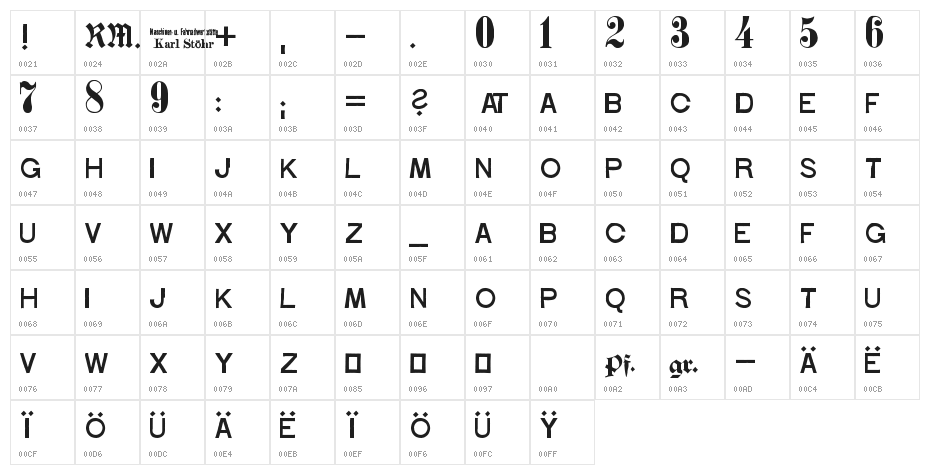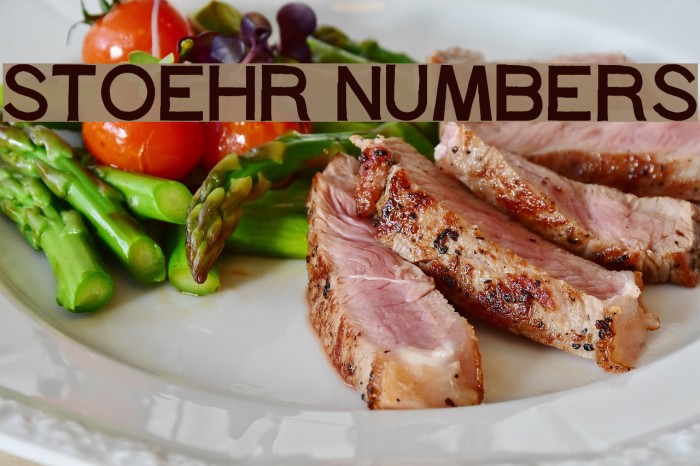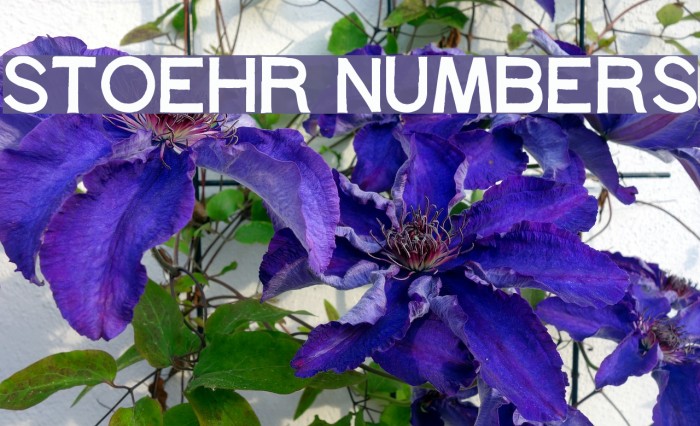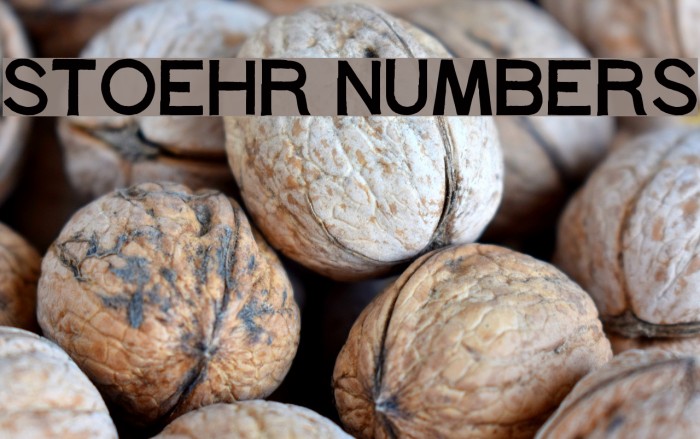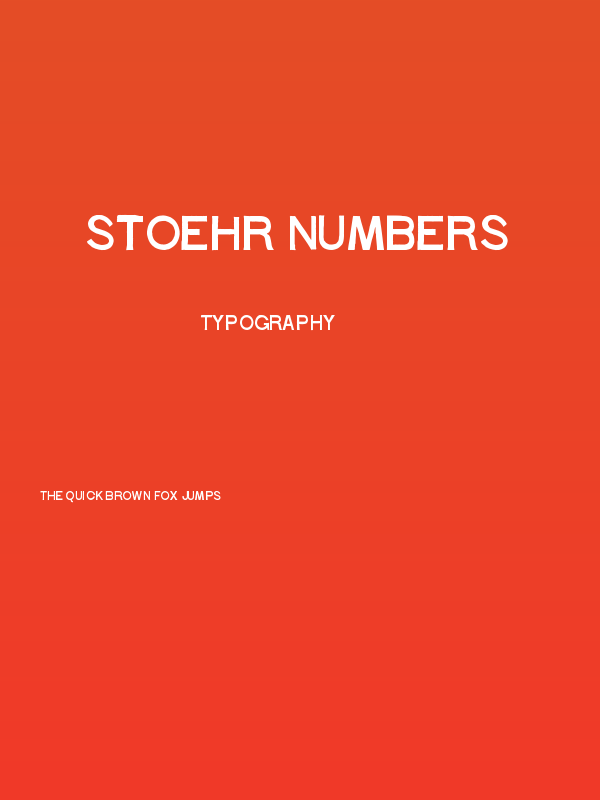
Stoehr numbers Font
Stoehr numbers Description
This font features a bold and striking design with a strong presence. The uppercase letters are characterized by their thick, uniform strokes, giving them a robust and authoritative appearance. The numbers are particularly distinctive, with unique curves and angles that add a decorative flair. The special characters maintain the bold aesthetic, ensuring consistency across all glyphs. The overall style is reminiscent of vintage industrial design, making it suitable for projects that require a bold and impactful typeface.
| Overall Style | Vintage |
| Use Case | Logos, Headlines, Posters |
| Proposed Projects | Ideal for vintage-themed posters, industrial design projects, branding for machinery or automotive companies, and any project requiring a bold, impactful typeface. |